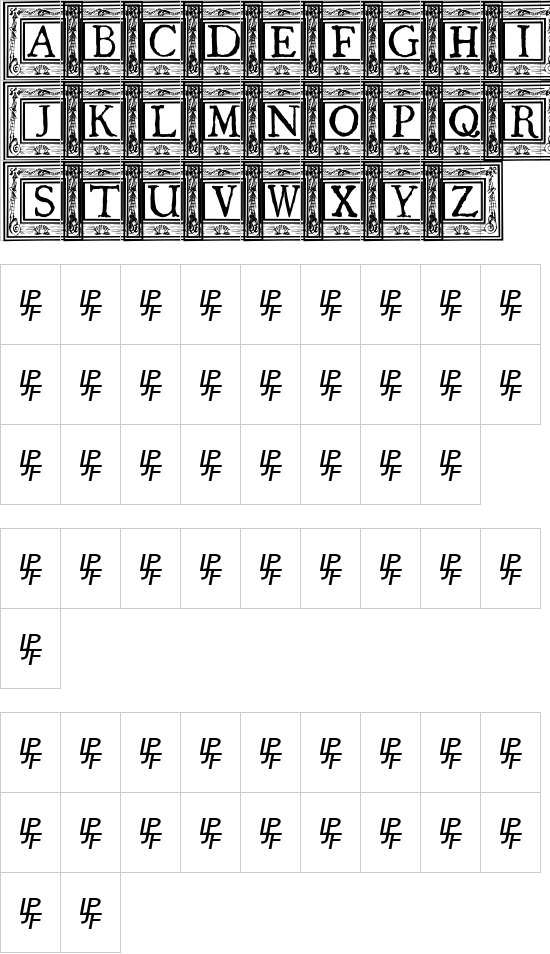
QuaNauticale_Initials_No1
About QuaNauticale_Initials_No1
QuaNauticale_Initials_No1 is an ornate initial caps font with decorative, sea-themed capital letters full of flourish. The capitals are wrapped in maritime detailing and curling embellishments, reading like vintage drop caps from an old nautical chart or logbook.